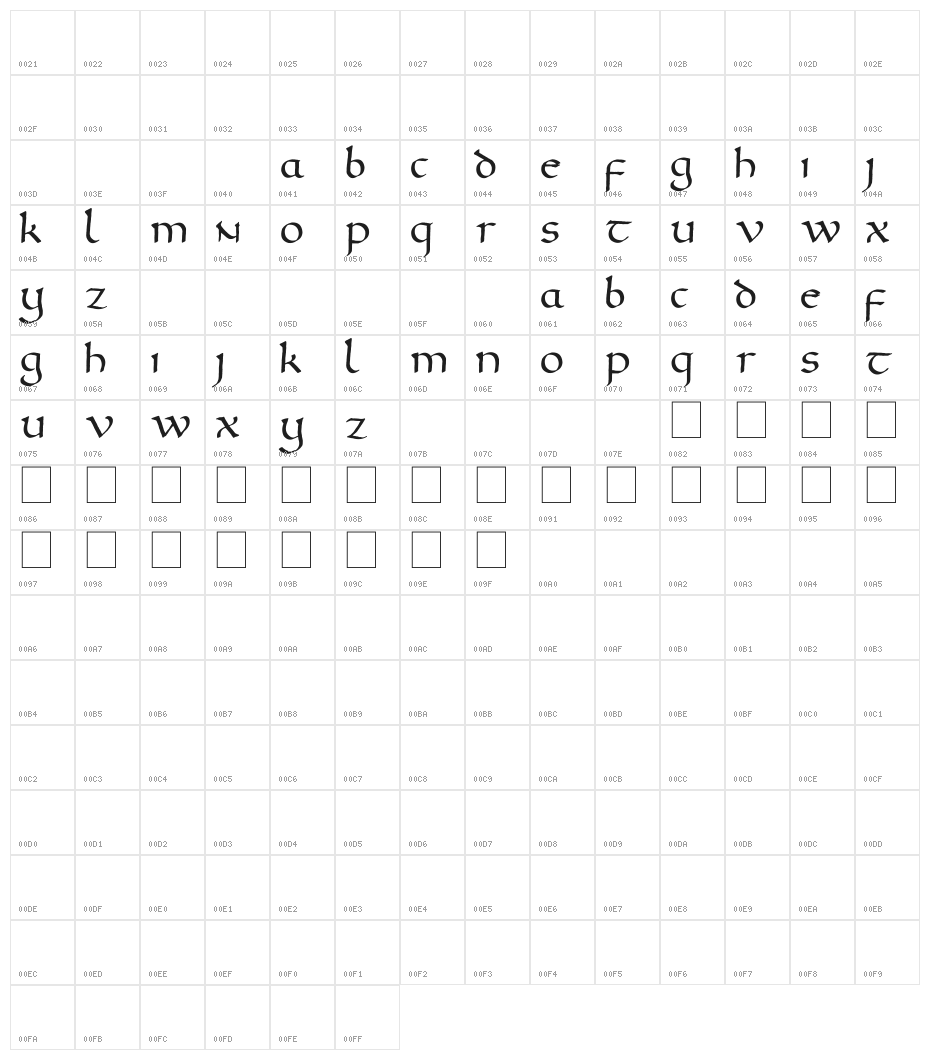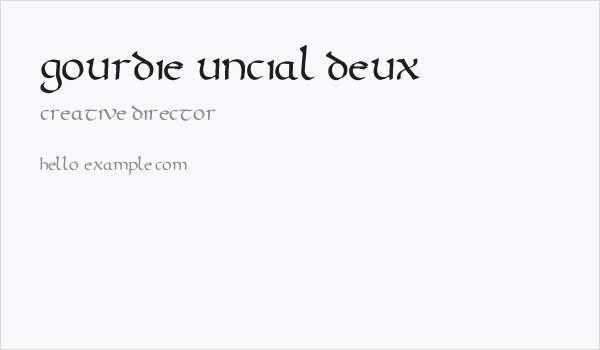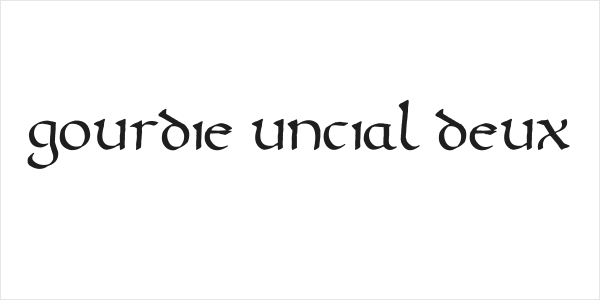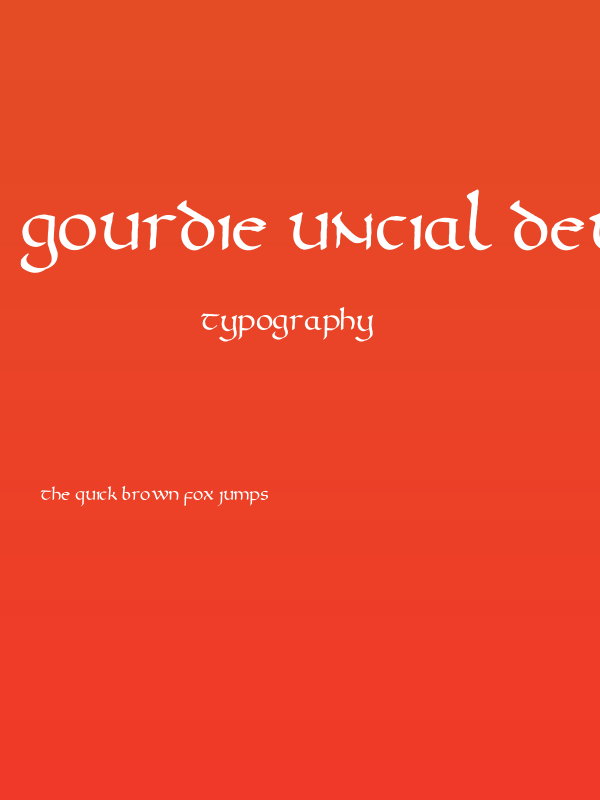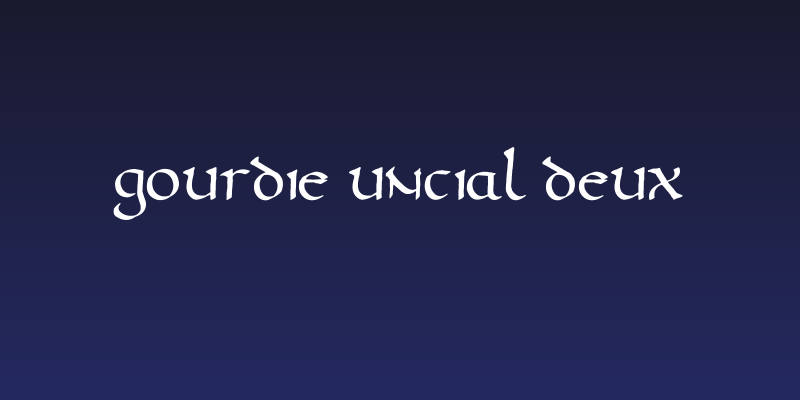
Gourdie Uncial Deux Font
Gourdie Uncial Deux Description
This font exhibits a unique blend of medieval and calligraphic styles, characterized by its distinctively rounded and flowing letterforms. The characters are crafted with a sense of elegance and historical flair, reminiscent of ancient manuscripts. The strokes are moderately thick, with a slight variation in width that adds a subtle dynamism to the text. The overall appearance is both artistic and readable, making it suitable for projects that require a touch of antiquity and sophistication. The lowercase letters are particularly notable for their smooth curves and consistent height, while the uppercase letters maintain a harmonious balance with the lowercase set. This font is ideal for creating a sense of tradition and timelessness in design.
| Proposed Projects | Ideal for historical documents, fantasy book covers, themed invitations, and branding that requires a classic touch. |